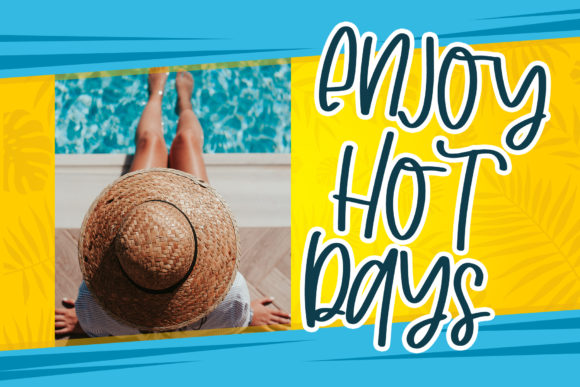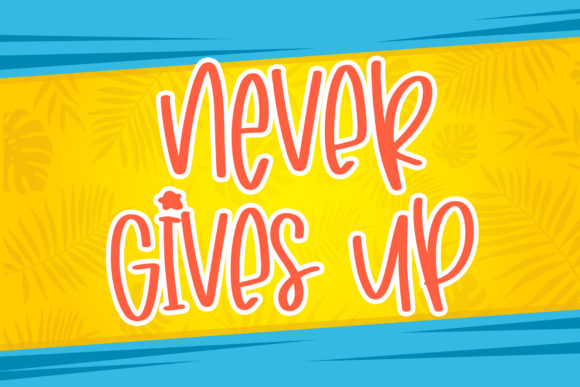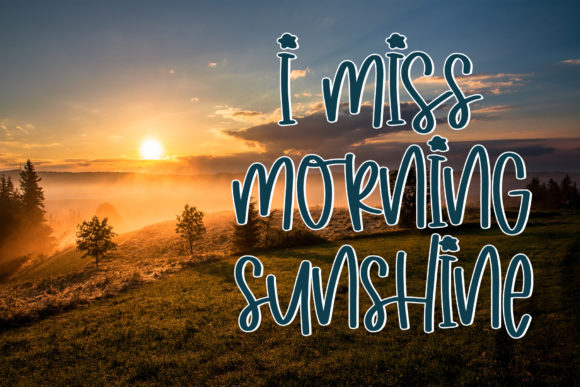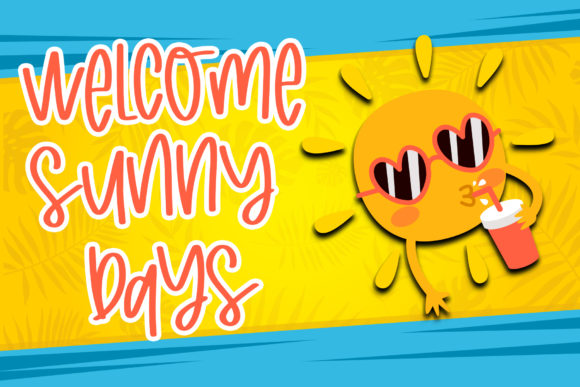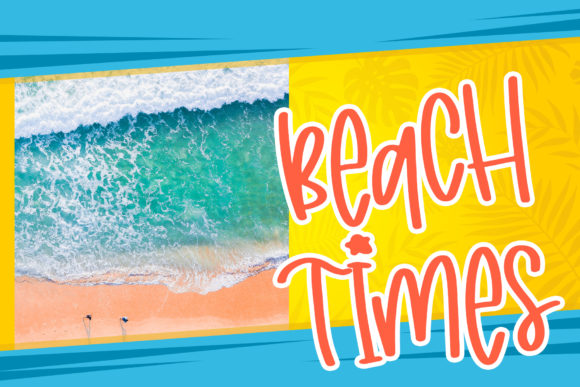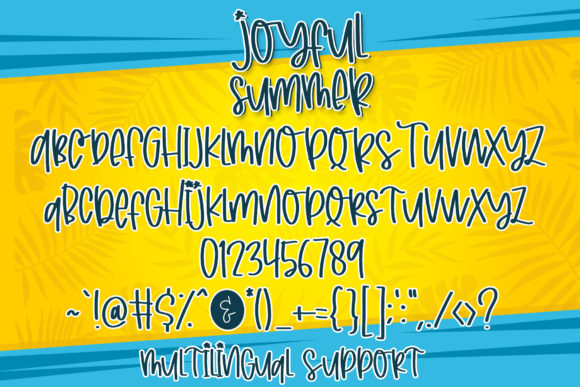
Joyfull Summer Font
About Joyfull Summer Font
Joyful Summer is a quirky, and unique handwritten font with a messy look. This font is the perfect fit for all of your logos, branding, social media, and crafty DIY project